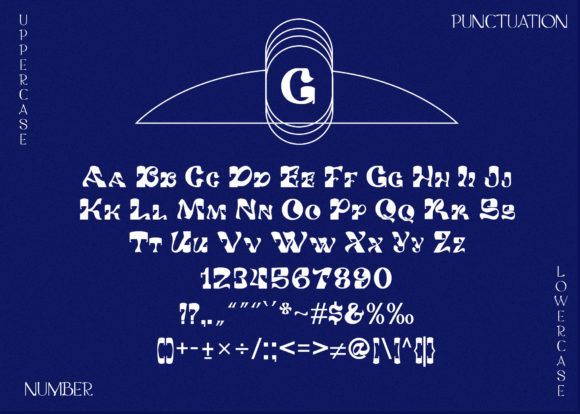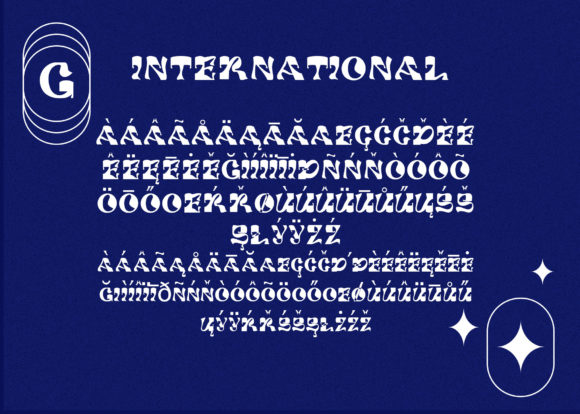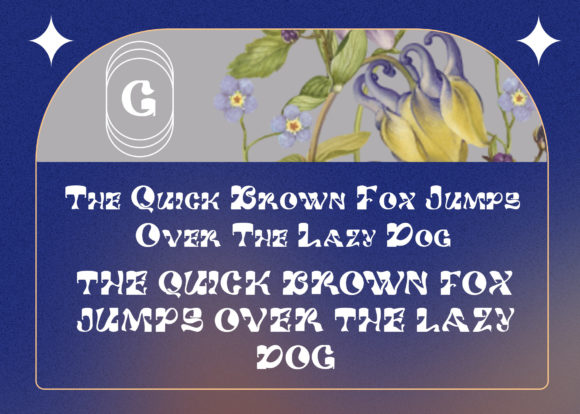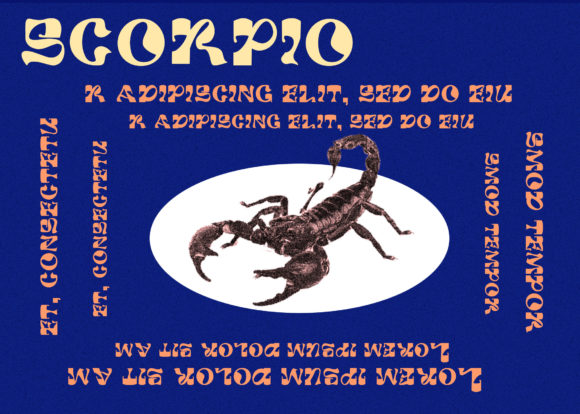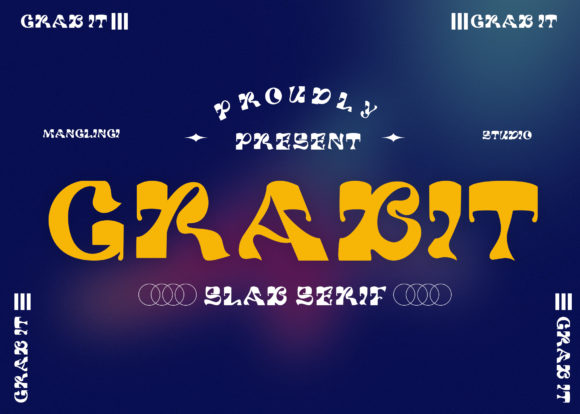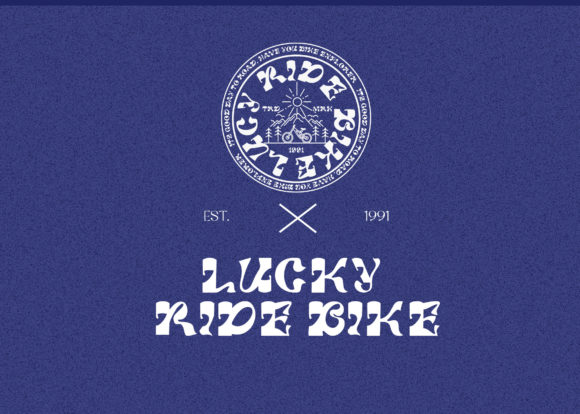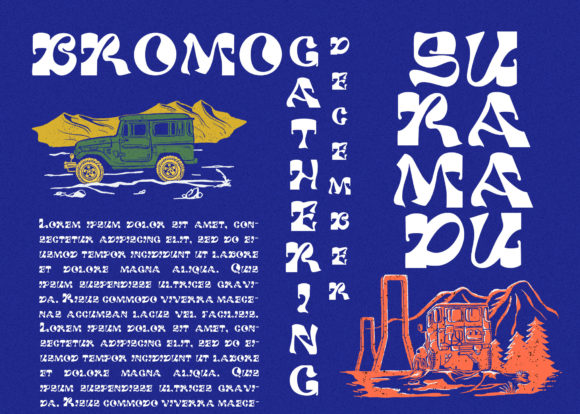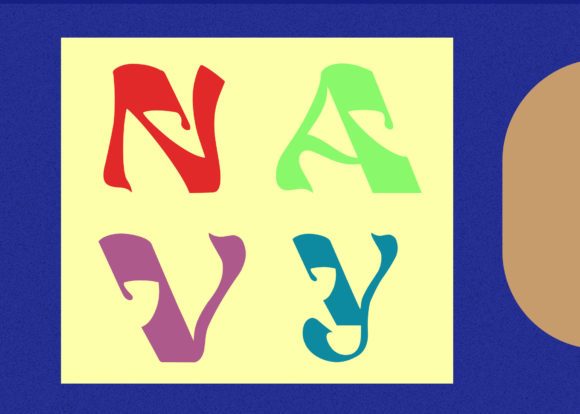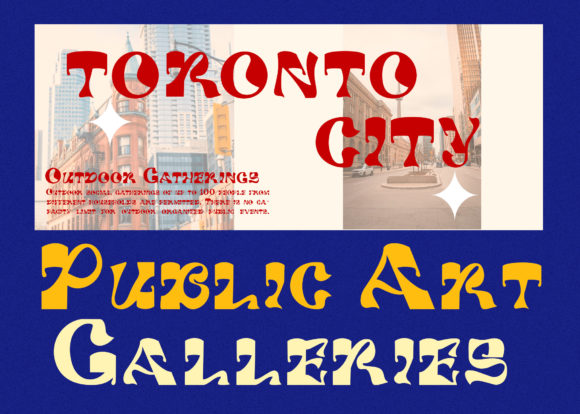
Grabit
Grabit: A Bold and Creative Slab Serif Font
Grabit is a distinctive slab serif font that combines boldness with creativity. This eye-catching typeface is designed to add fun and inviting elements to various design projects.
Key Features of Grabit
• Bold Design: Features strong, impactful letterforms that command attention.
• Creative Style: Offers a unique and imaginative look suitable for various applications.
• Slab Serif Structure: Incorporates the characteristic thick, rectangular serifs typical of slab serif fonts.
• Fun and Inviting: Designed to create welcoming and engaging visuals.
• Versatile Application: Suitable for a wide range of projects needing a bold and creative touch.
Ideal Uses for Grabit
Grabit’s unique characteristics make it particularly well-suited for:
• Playful branding and logo design
• Eye-catching headlines and titles
• Fun poster and advertisement layouts
• Creative packaging designs
• Engaging social media graphics
• Inviting signage and display typography
When incorporating Grabit into your designs, consider these tips:
• Use for headlines or short blocks of text to maximize its bold and creative impact
• Experiment with different sizes to highlight the font’s unique details
• Take advantage of its fun and inviting style to create engaging designs
Grabit is an excellent choice for designers looking to add a bold and creative slab serif font to their typographic toolkit. Its ability to create fun and inviting designs makes it stand out in the world of typography. Whether you’re working on logo designs for playful brands, creating layouts for eye-catching posters, or developing content that requires a touch of boldness and creativity, Grabit offers the perfect blend of impact and imagination.
Furthermore, Grabit’s versatility allows it to shine in various contexts. From vintage-inspired designs with a modern twist to more playful layouts that need a touch of boldness, this font can elevate your projects with its unique style. Its bold and creative nature works particularly well in designs that require a fun and engaging mood.
In conclusion, Grabit is a font that truly lives up to its name, grabbing attention with its bold and creative character. Its ability to work well in both bold, modern projects and more playful layouts showcases its flexibility. For those looking to add a dash of confidence and creativity to their work, Grabit can even enhance themed creations with its unique, inviting style. Add it confidently to your favorite creations and let yourself be amazed by the results it generates.